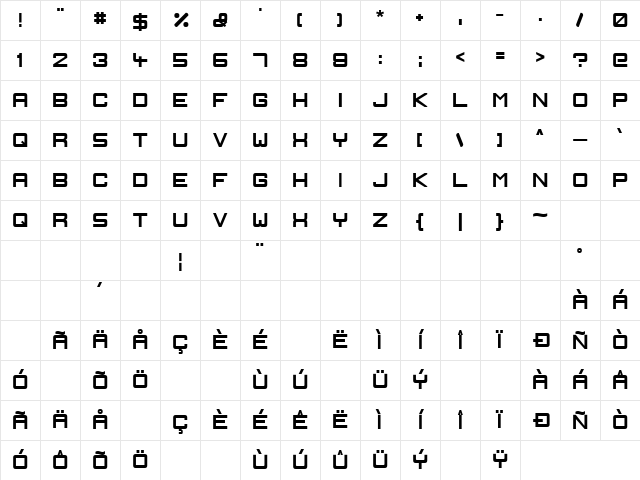
Ignis et Glacies Sharp Bold
Designer: Zdenek Gromnica aka FutureMillennium
Design Context for Ignis et Glacies Sharp
Ignis et Glacies Sharp is a composed and adaptable typeface that performs quietly and consistently across a wide range of design contexts. Its bold stroke weight gives it real presence on the page.